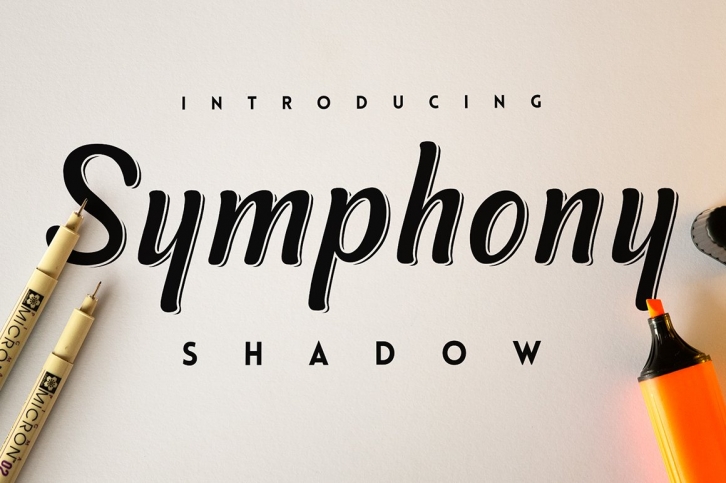
Symphony Shadows is a modern script typeface. It is based on Symphony (which can be found here: http://crtv.mk/p0EyI ). Symphony Shadows comes with the base glyphs, numbers and characters
Designed to look good both at small and big sizes Symphony is perfect for web headlines, books, lettering compositions and many more.